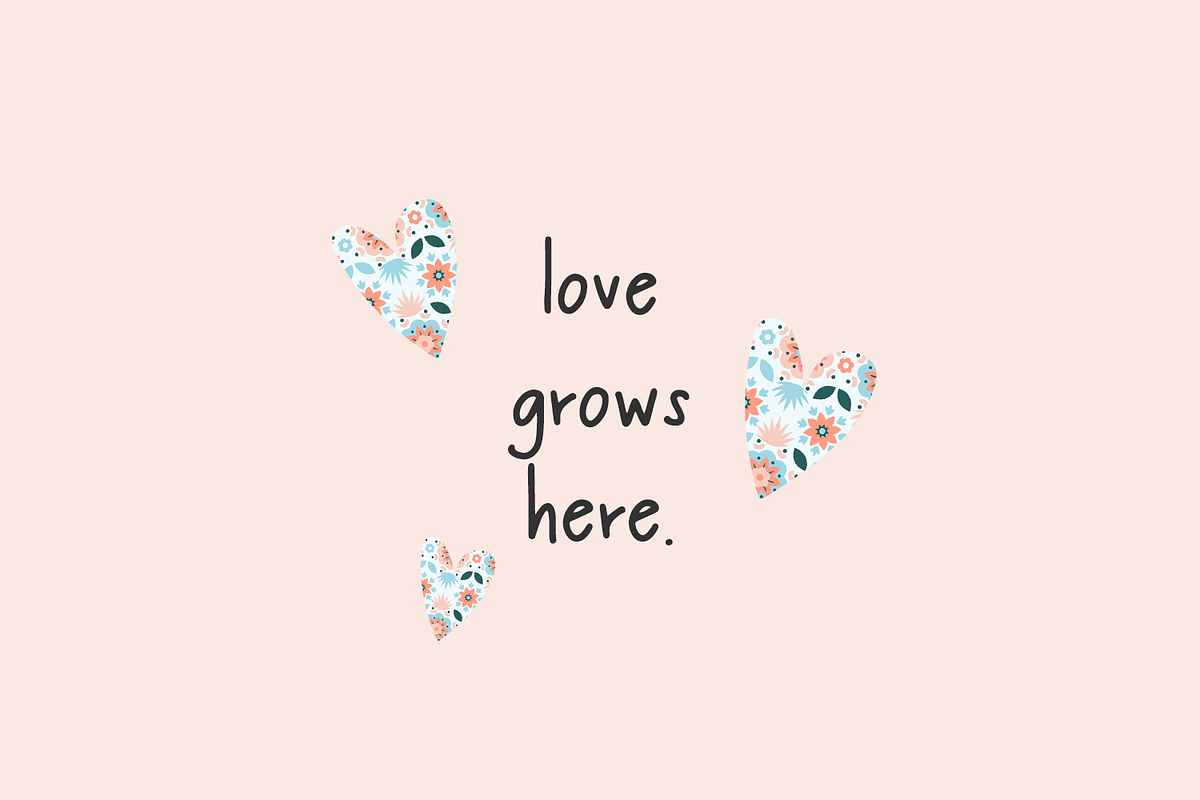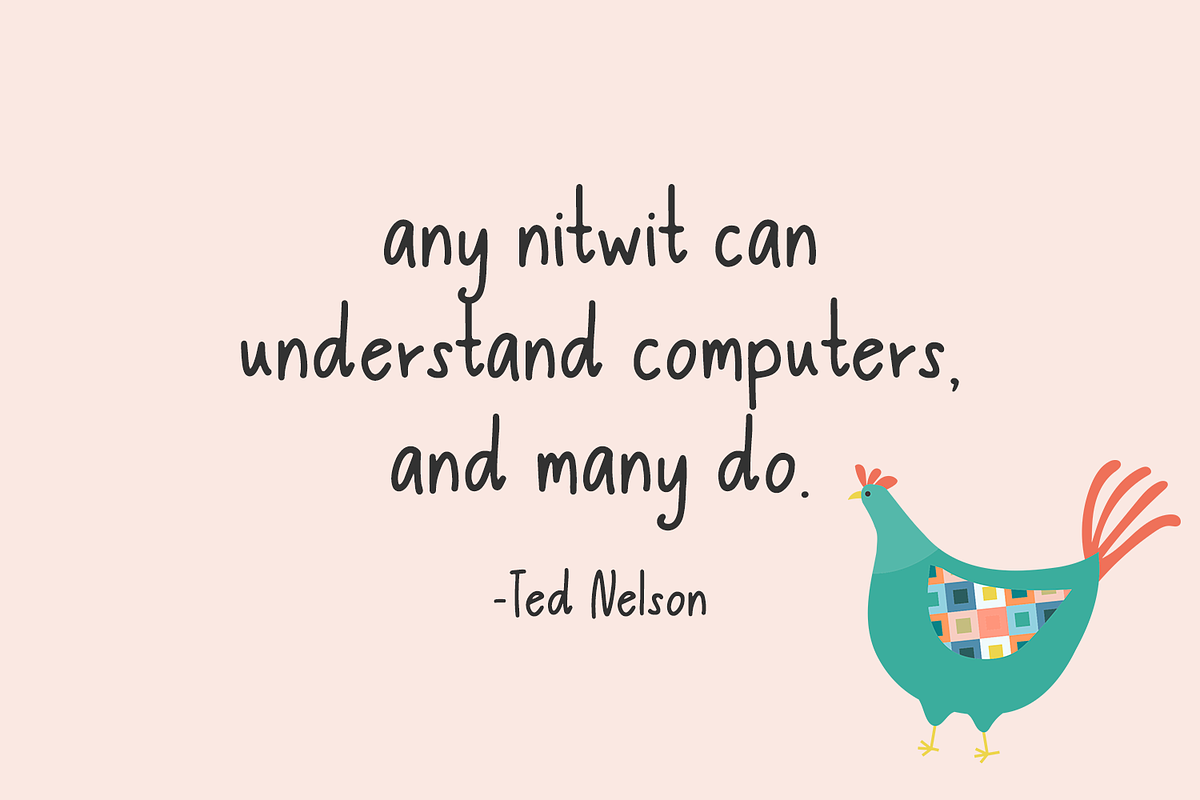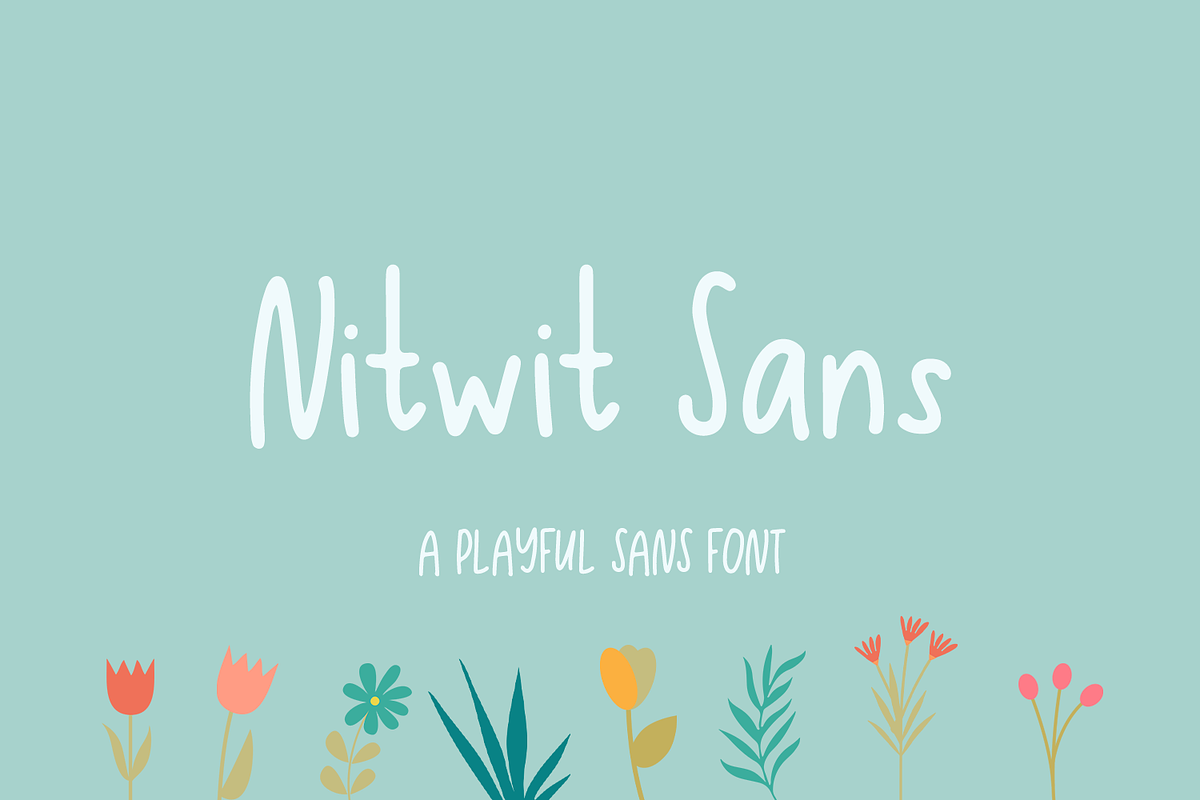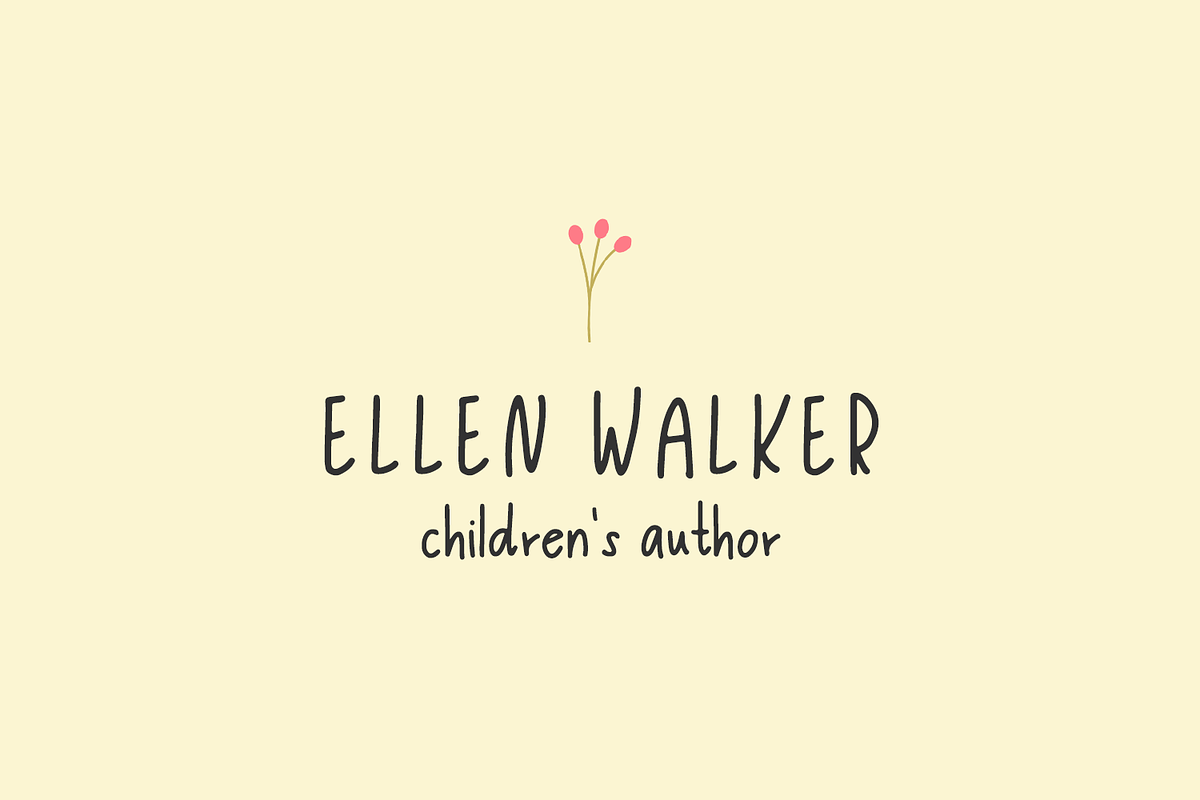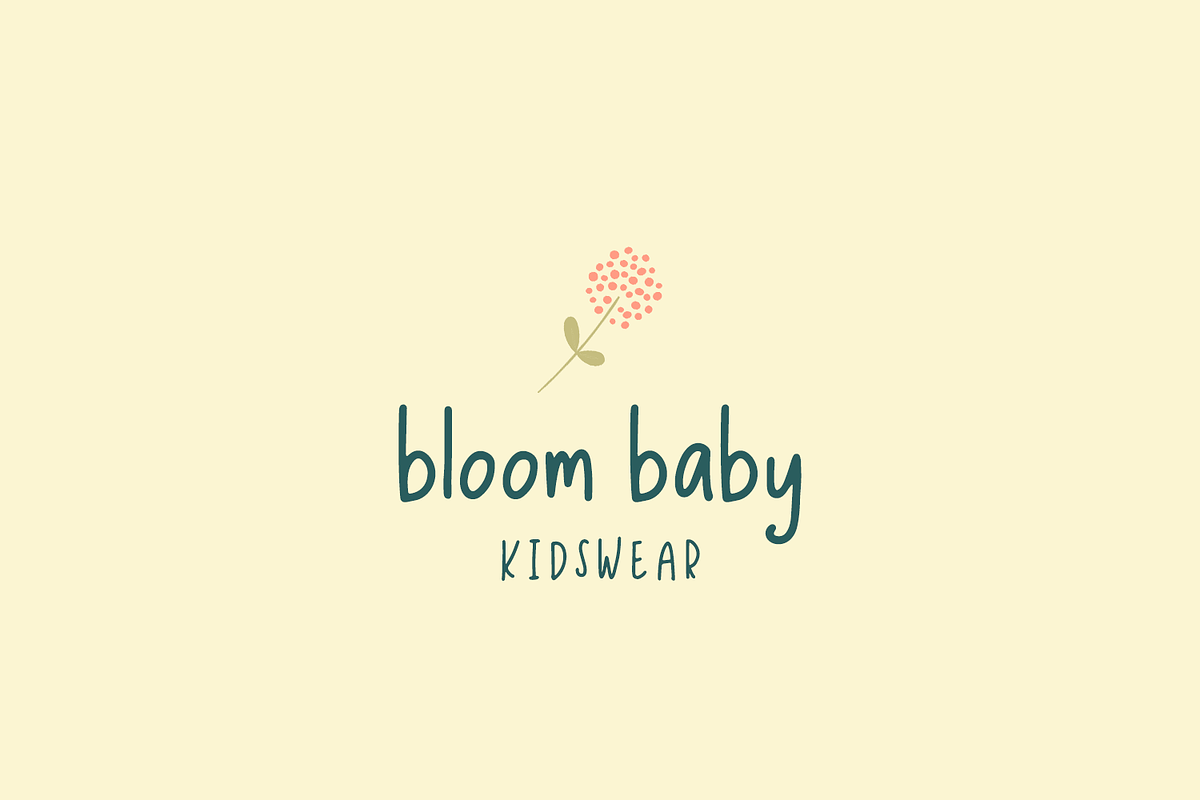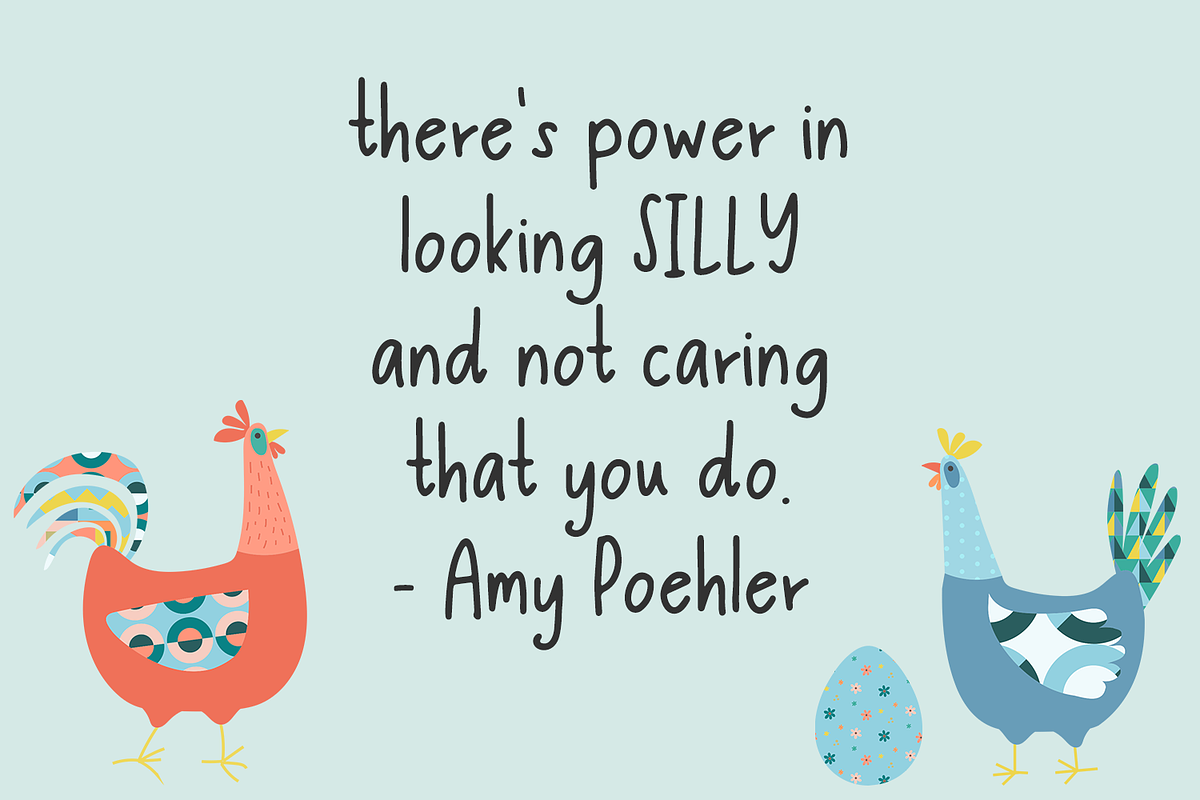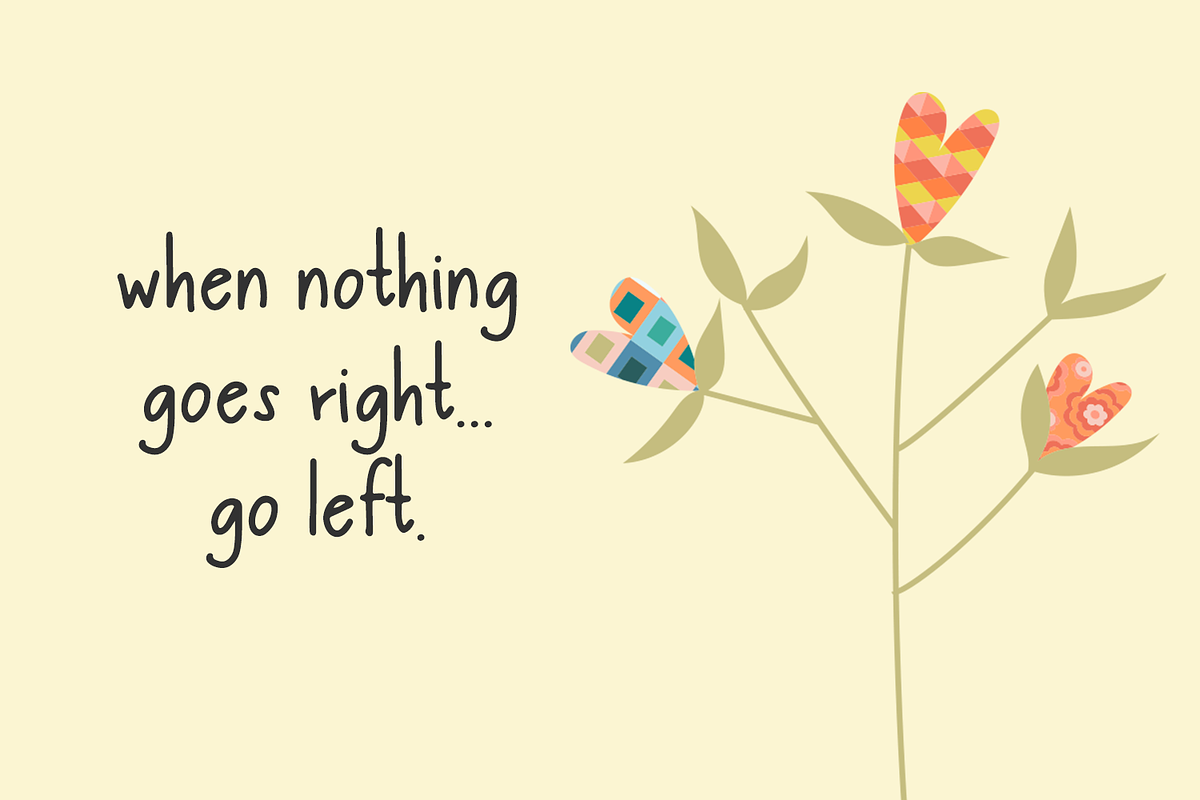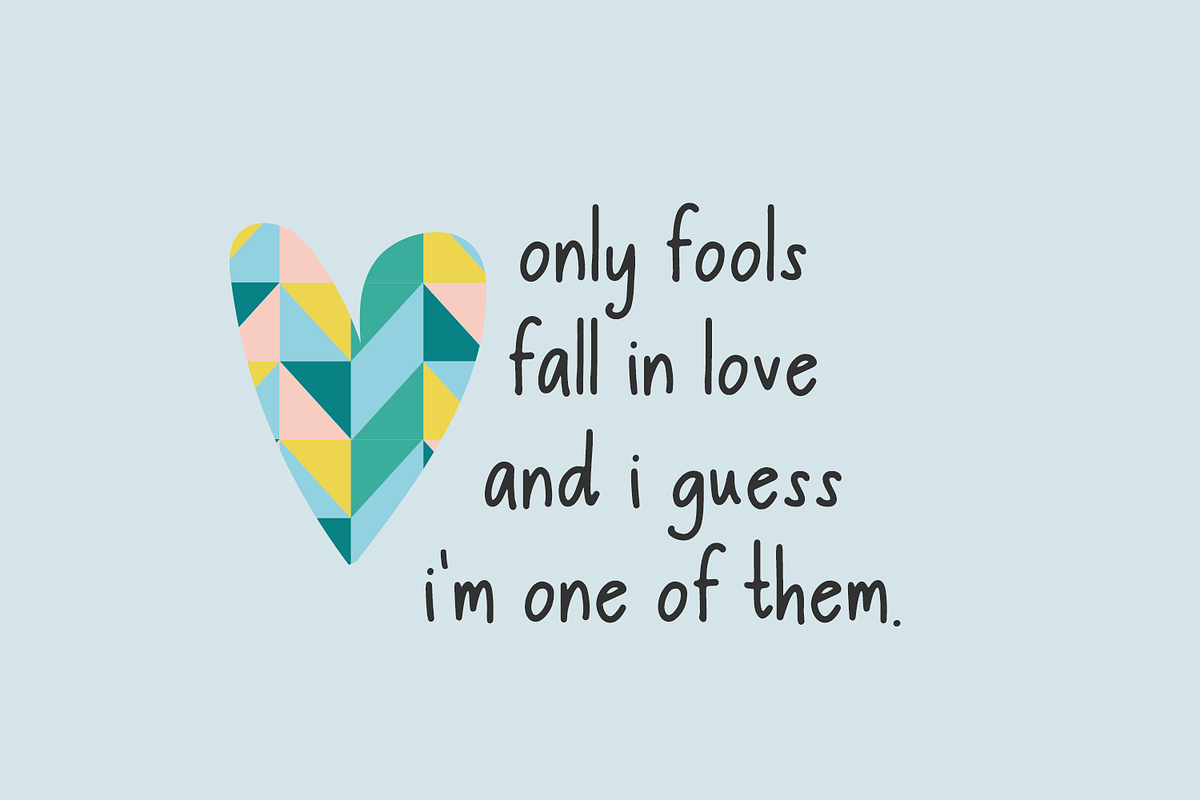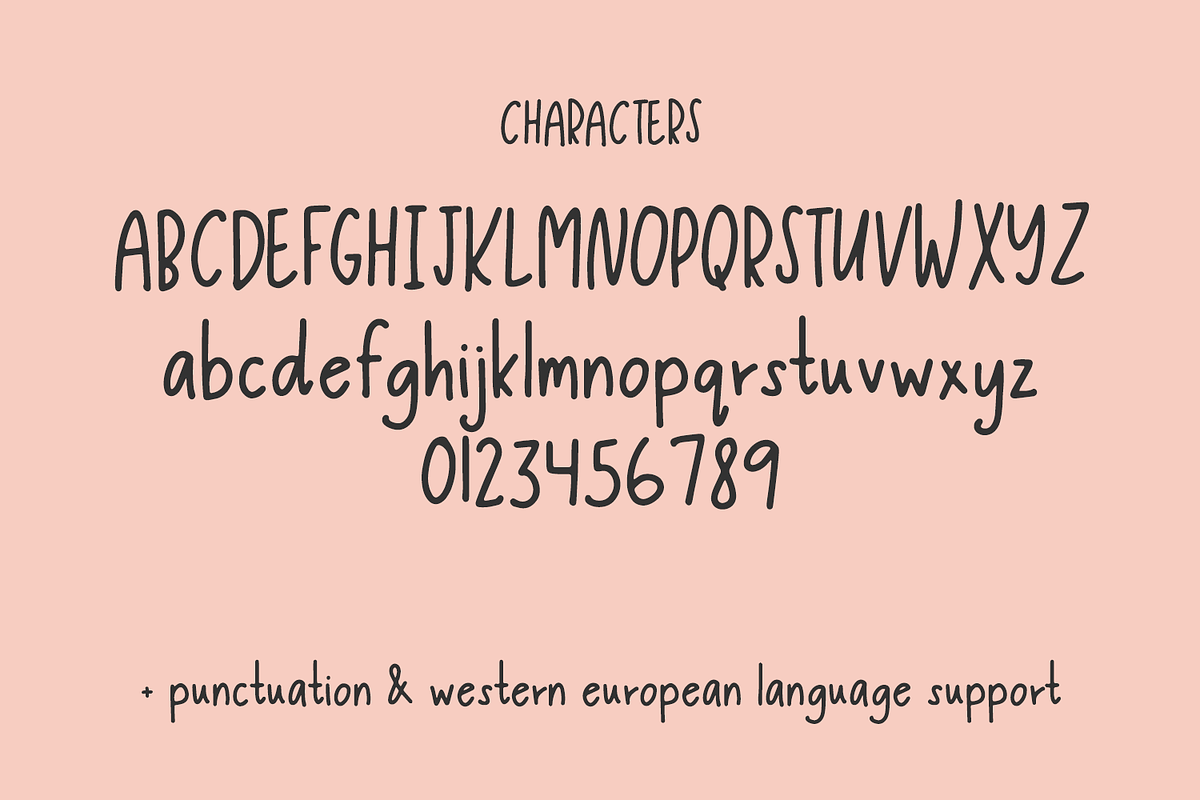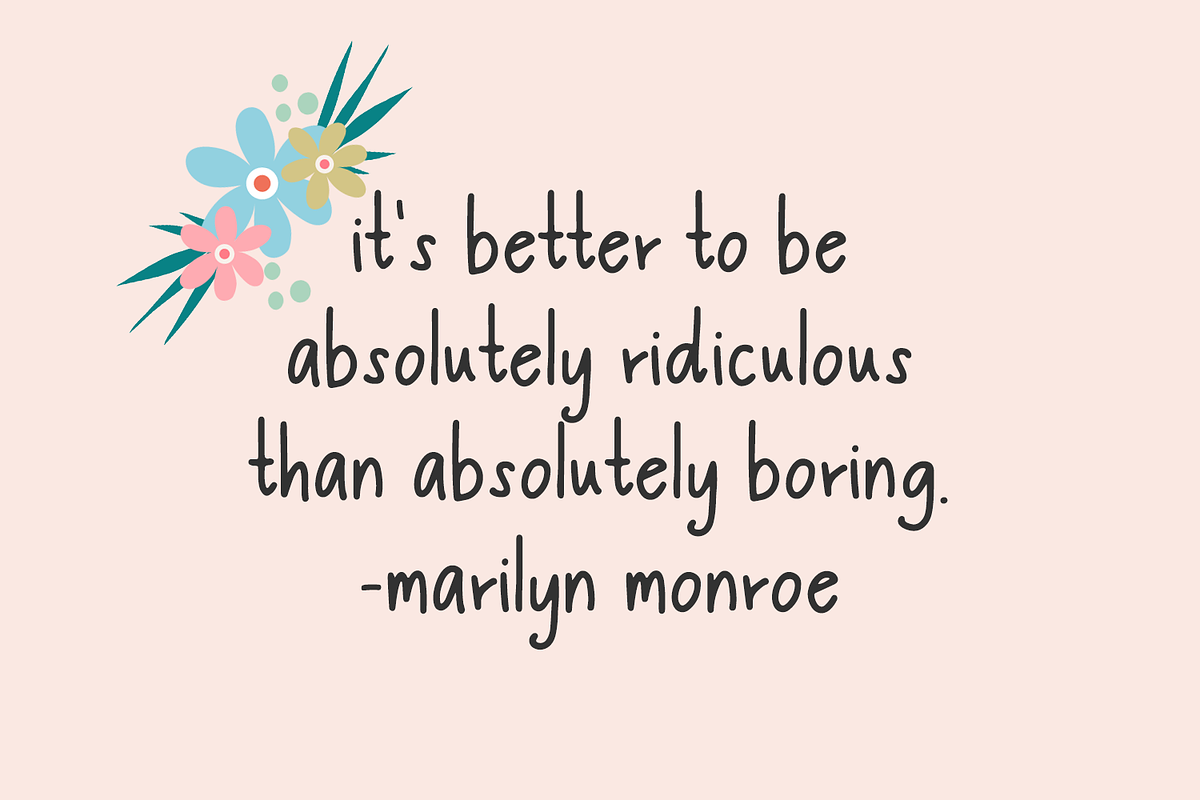
Nitwit Sans
Say hello to Nitwit Sans, a crafty little font great for kid projects.
Nitwit Sans is best for:
- crafting projects on your Cricut or Silhouette machine - Nitwit features a smooth edge for cutting & is super legible
- header elements that need handwritten touch
- quote graphics for social media like Facebook or Instagram
- full upper + lowercase characters for both sans & serif versions
- numbers + punctuation
- Western European Language Support